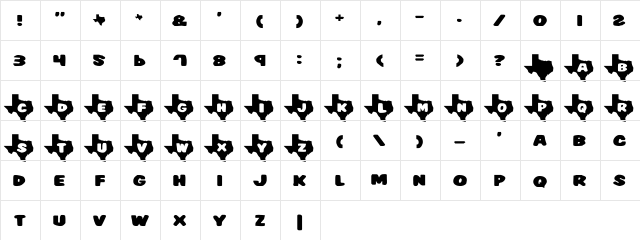
Texas Regular
Design Context for Texas Typeface
Texas is a composed and adaptable typeface that performs quietly and consistently across a wide range of design contexts.